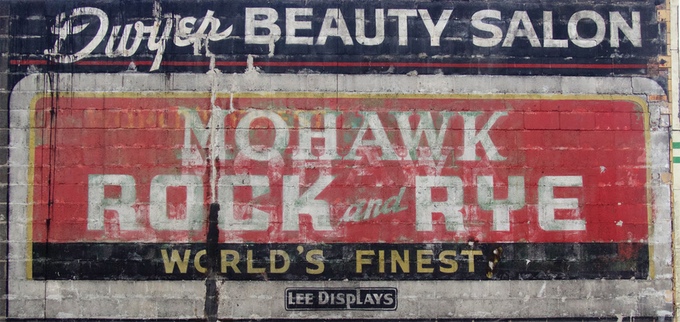
“I believe that design should be accessible to everybody.”
This is the motivation of Detroit-based graphic designer Jessica Krcmarik to digitize and preserve her neighborhood’s cultural identity through its vintage signage.
Through her font foundry, Gratiot and Riopelle, she started a Kickstarter crowdfunding campaign to digitize 10 unique fonts from the Detroit neighborhoods which will be available as pay-what-you-can downloads.
The hand-painted signage ranges from old laundromats and parking garages to beauty salons and real estate offices, all of which feature vintage typography. Sadly, their age is apparent through their fading and flaking appearances. They will inevitably be painted over.
The solution is to digitize them.
Jessica explains in her Kickstarter page “By creating a usable font based on the signs in a particular area, and making it available to small businesses in that area, the visual culture lives on even if the sign it’s based on is painted over or destroyed.”
Designers have been largely supportive of Jessica’s campaign. In her defense, it is a way to preserve a part of Detroit’s culture and the end product is being offered for free.
Some people are not happy with Jessica’s venture however, calling it “a hobby.” A Reddit comment on the topic reads “She doesn’t need a Kickstarter to do this, the costs involved aren’t remotely what she claims for software/hardware. What a pathetic cash grab.”